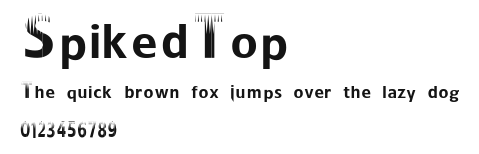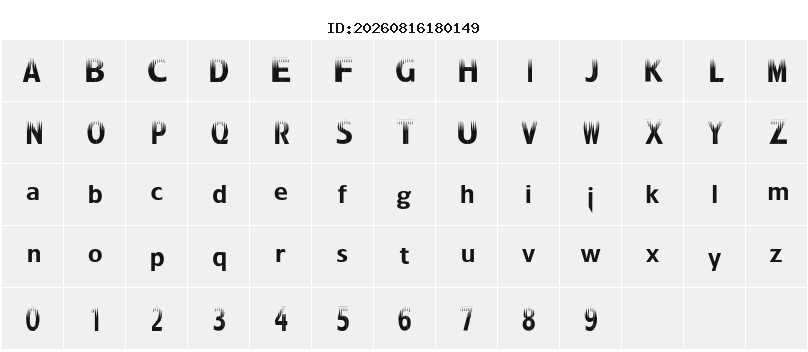
• Font Name: SpikedTop
• Full Font Name: SpikedTop
About SpikedTop.ttf
SpikedTop.ttf is a modern, elegant sans-serif font designed for ultimate readability and visual harmony. Perfect for branding, headlines, web design, and print materials.